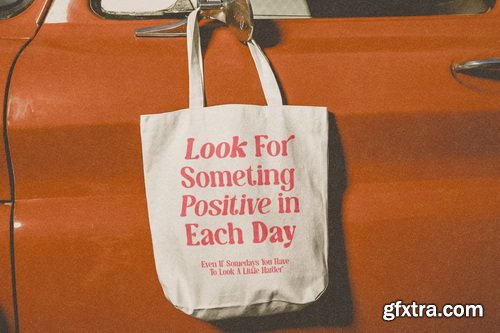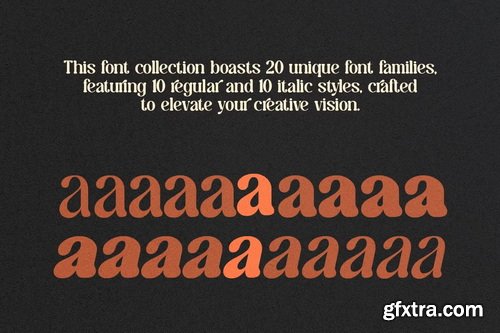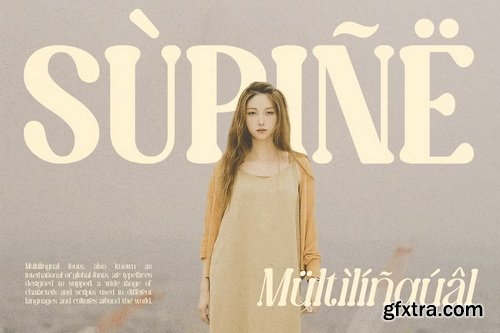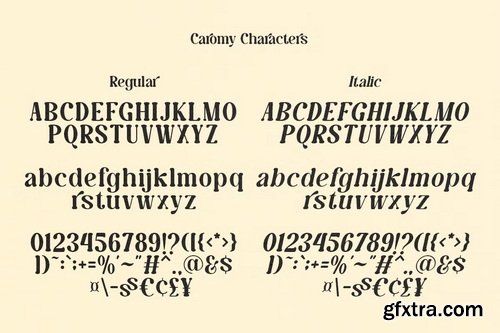
CreativeMarket - Caromy Retro Variable Font
- Bring a touch of retro charm to your designs with Caromy, a bold and playful typeface that combines vintage aesthetics with modern versatility. Featuring soft curves, chunky forms, and unique letterforms, Caromy is perfect for creating standout headlines, branding projects, posters, logos, and nostalgic packaging.